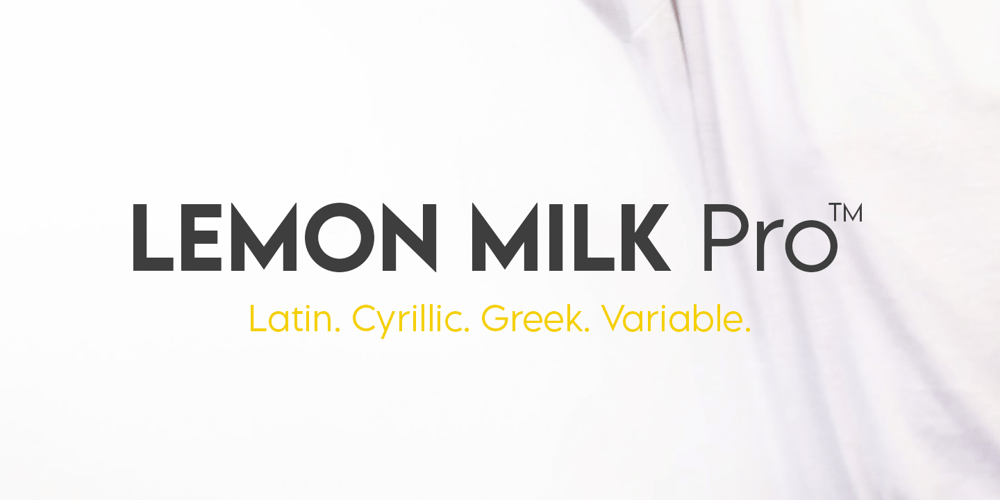
Lemon Milk Pro Font Family was designed by Muhammad Ariq Syauqi and published by Marsnev. Lemon Milk Pro contains 20 styles and family package options. Wait no more. Meet Lemon Milk Pro™, your new go-to typeface. After a long journey, the widely known Lemon Milk has now became pro fonts. It finally has lowercases, covering extended Latin, Cyrillic, and Greek. Moreover, developed from the original version in 2014, it is now future proof: more opentype features + variable fonts. With such styles, this famous geometric typeface with sharp edges is perfect for every display! Lemon Milk Pro: Beyond a typeface, it’s a culture.